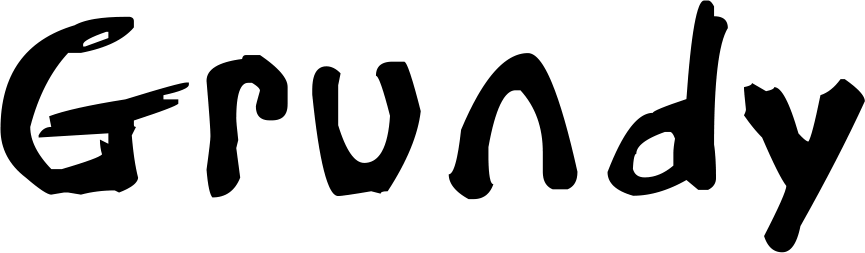
Grundy Font
For sharing interesting details about an event in a comfy, warm, and particularly friendly frame, desperately need a font with these characteristics like Grundy, so don’t hesitate to touch on this script font and give it a chance to show off in your posters, greeting cards, animation, apparel, and whatnot with its crayons style.